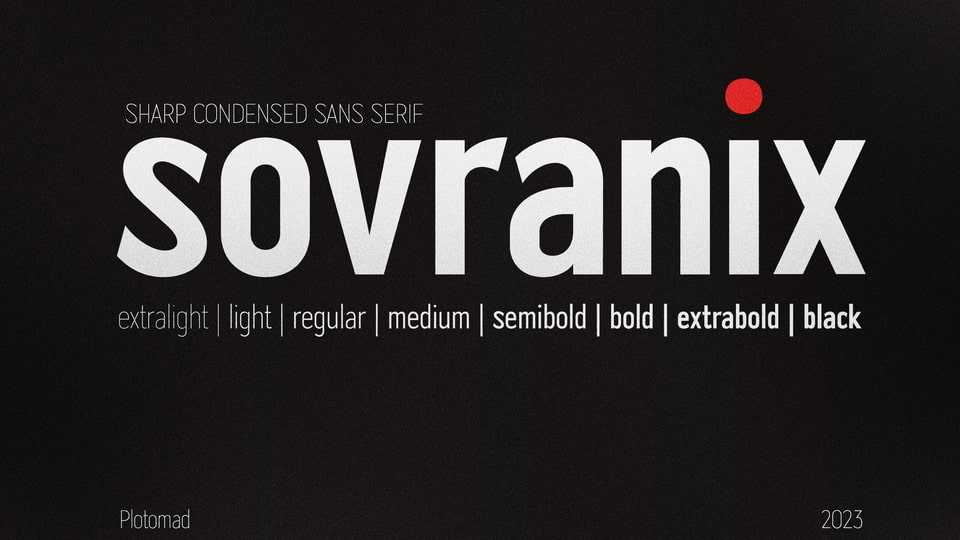
Download Sovranix font, an elongated and modern sans serif typeface with alternate glyphs. Sovranix is a great choice for any project that needs a modern and busy look.
Designer: Aleksey Ryabov